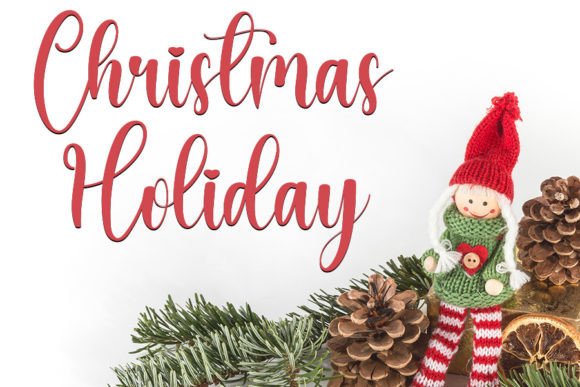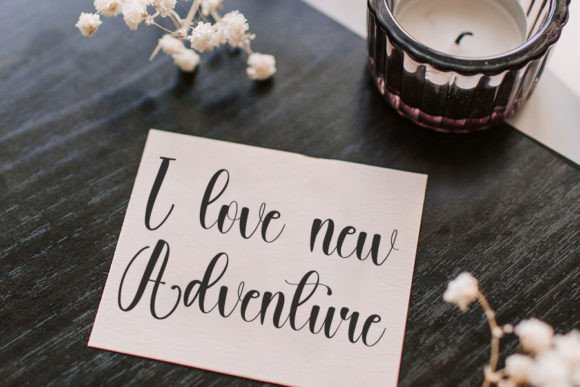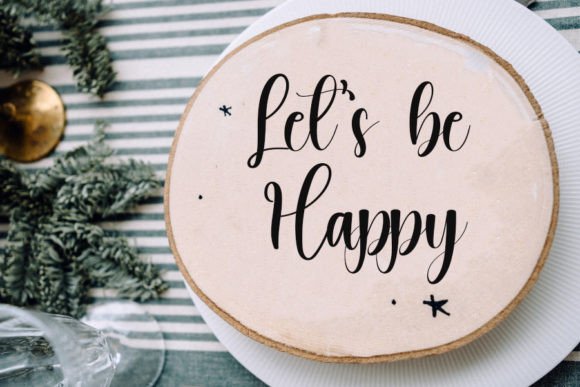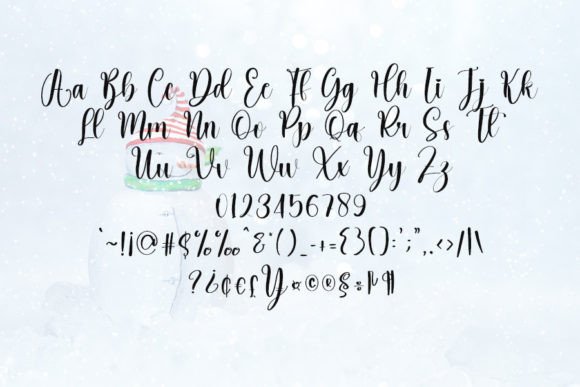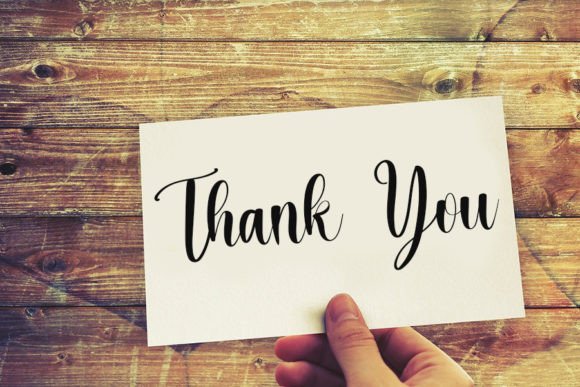
Winter Font
About Winter Font
Winter font is a casual and relaxed script typeface designed to bring a fresh and versatile touch to your creative work. Its smooth, flowing style makes it ideal for various projects, especially those that need a warm, friendly, and elegant feel.
A Versatile Script for Many Occasions
The Winter font adapts well to many design needs. Whether you’re creating wedding invitations, crafting beautiful stationery, or designing eye-catching social media posts, this font offers a charming yet casual aesthetic that fits perfectly. Its versatility means it will enhance your projects no matter the occasion.
Perfect for Wedding Invitations and Stationery
Winter font shines when used in wedding invitations and stationery designs. Its relaxed and graceful strokes add a personal and heartfelt touch that makes every invitation feel special. This font helps set the right tone for weddings, bridal showers, or other elegant events.
Make Your Social Media Stand Out
With Winter font, your social media content gains a unique and appealing style. Its friendly curves and readable form ensure that your posts capture attention while maintaining clarity. Use it on Instagram, Facebook, or Pinterest to make your messages memorable and visually attractive.
Suitable for Various Creative Projects
Besides weddings and social media, Winter font works beautifully for branding, quotes, packaging, posters, and more. Its elegant yet casual look gives your projects a fresh, inviting style that will resonate with your audience.
Why Choose Winter Font?
If you need a script font that balances casual ease with timeless charm, Winter font is an excellent choice. It adds warmth and sophistication to any project, helping your designs stand out with an authentic, handcrafted feel.